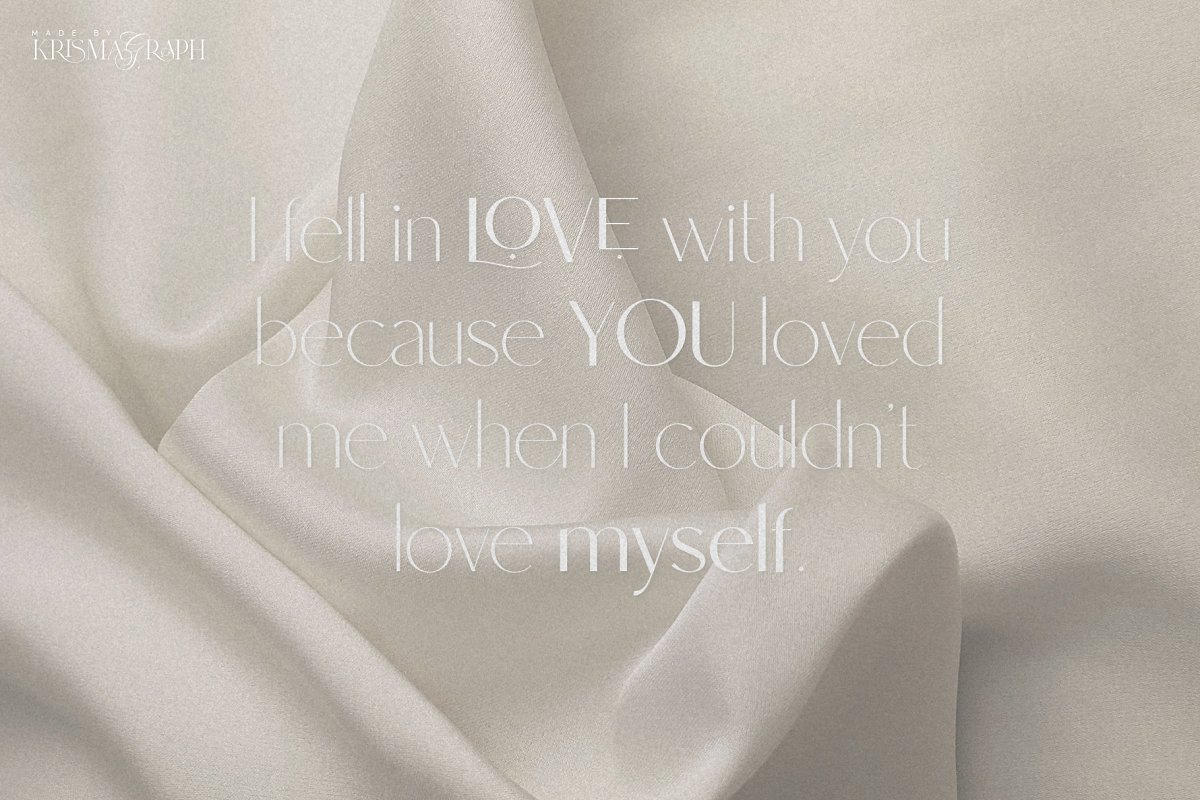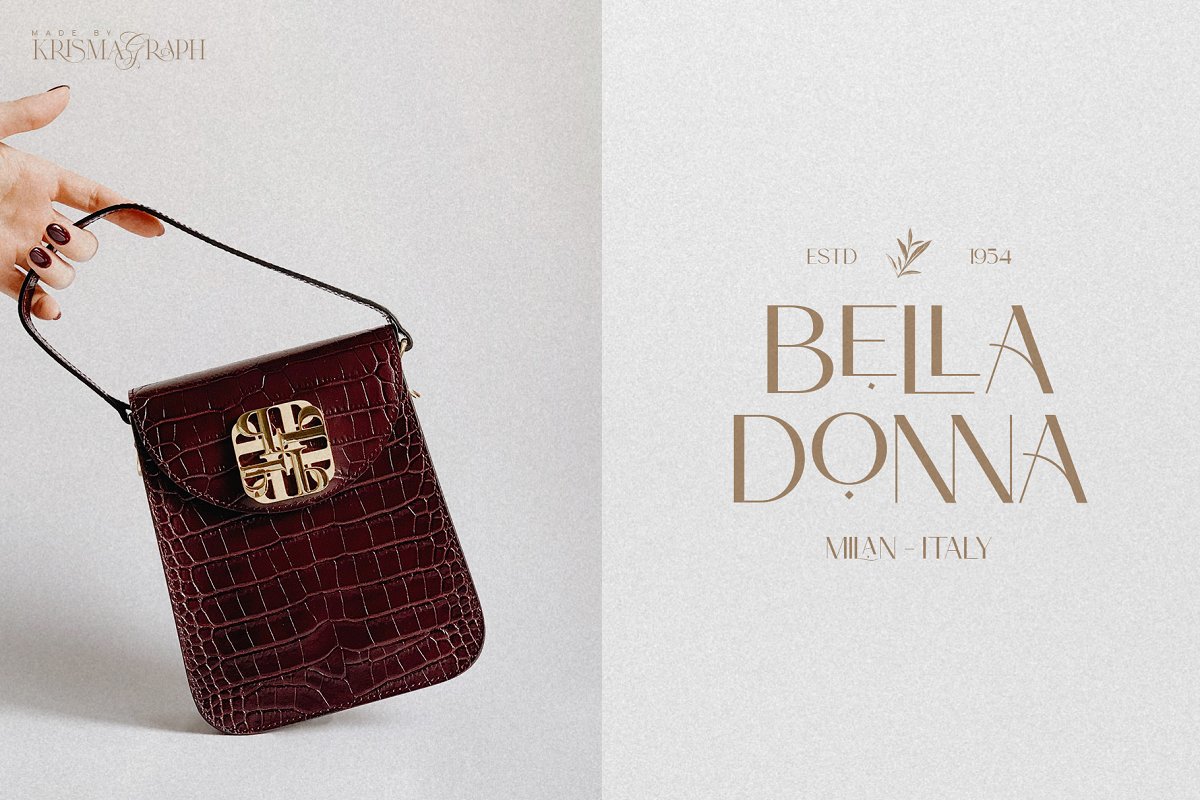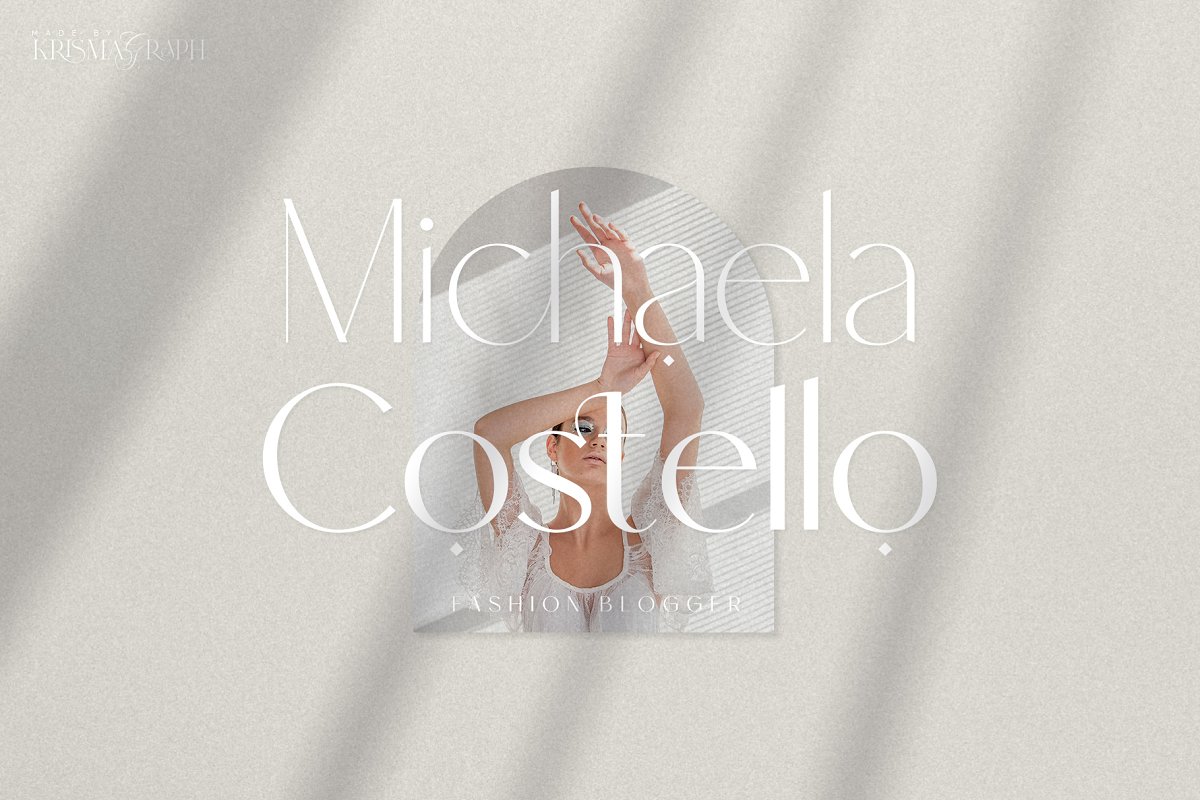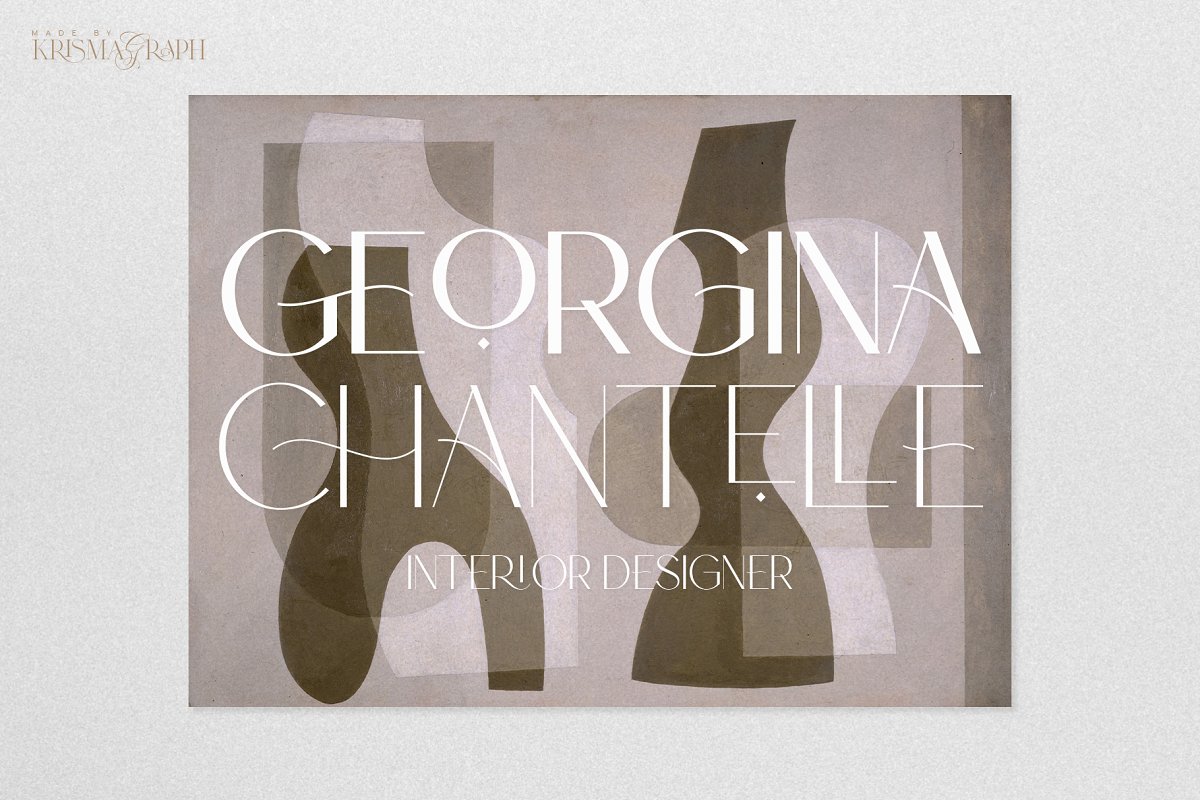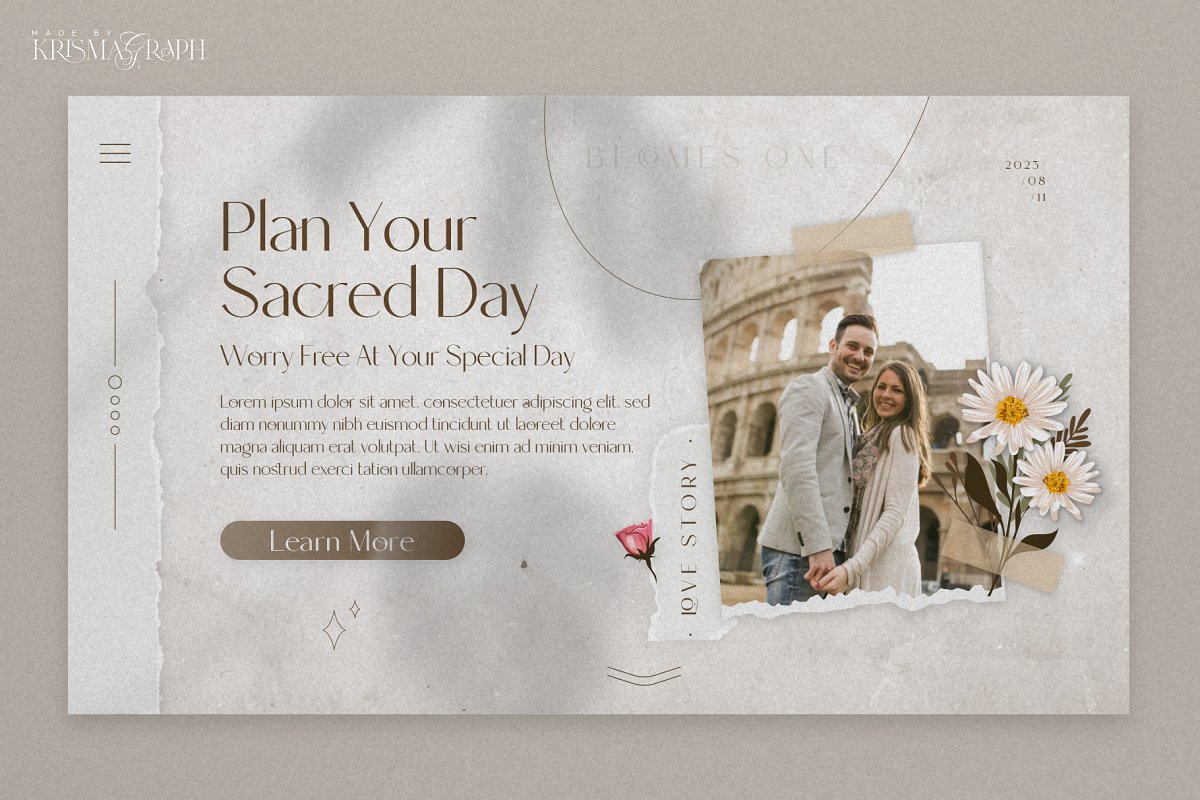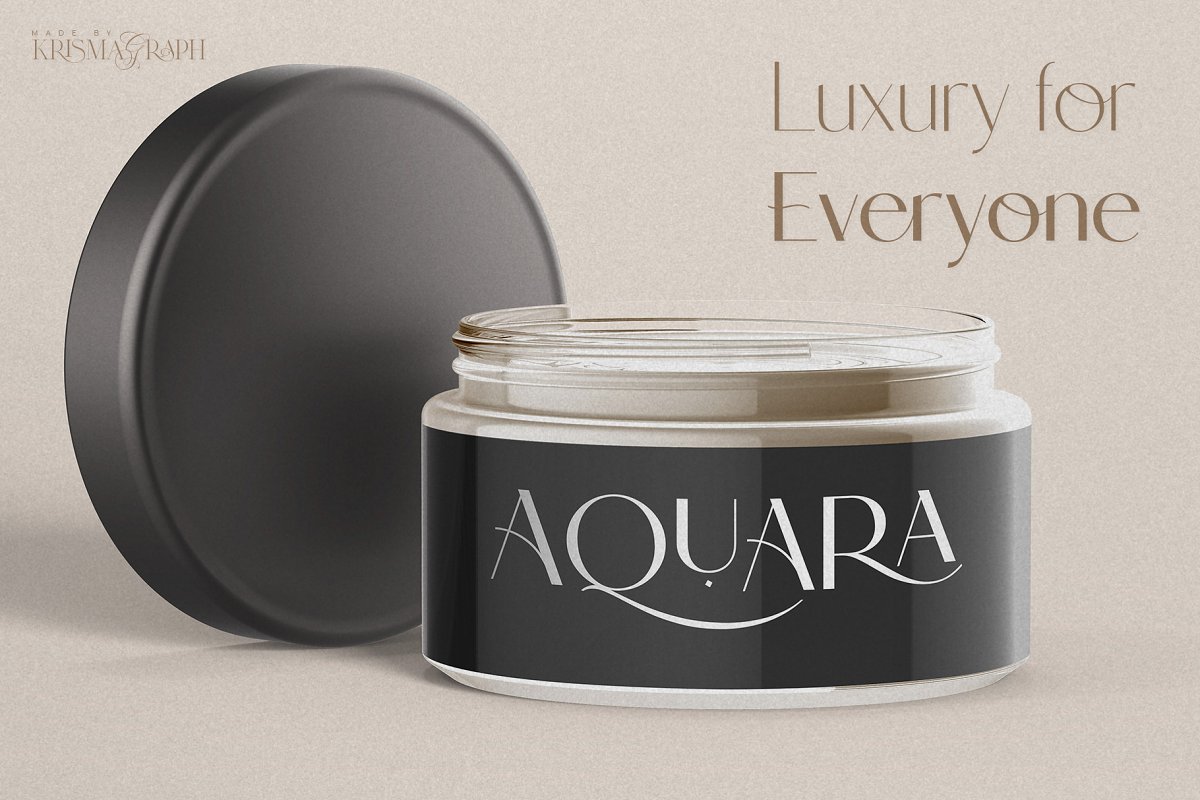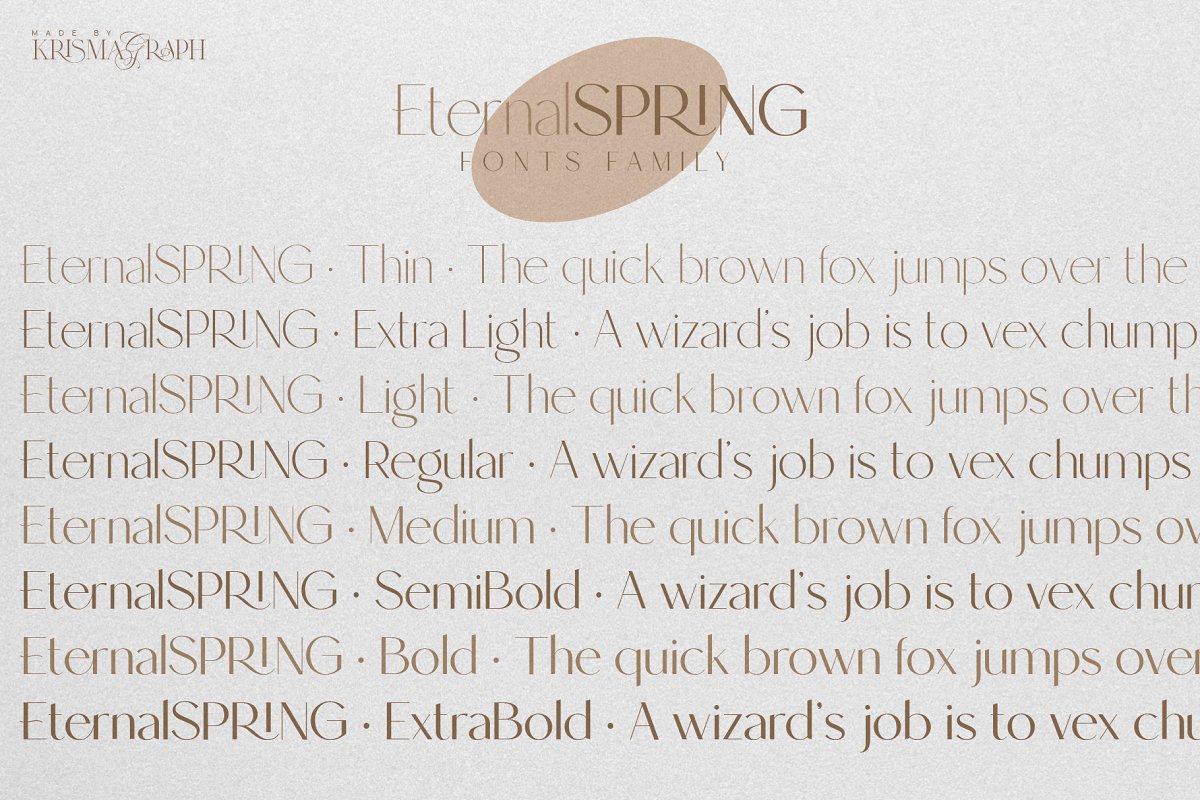
About the Eternal Spring | Elegant Sans Family
Eternal Spring is an elegant and modern san serif font family, It’s sans serif in 8 weights from Thin to ExtraBold and variable font, Comes with 76 unique ligatures and 27 alternates, Eternal Spring font is a multipurpose font that is perfect for any project, with high contrast glyphs, giving it a feminine and masculine quality, modern, and easy to read
Great in layout design for quotes or body copy, best used as a display for headings, logos, branding, magazines, product packaging, invitations, and others, This font is easy to use and has OpenType features, What you get:Eternal Spring Font Family OTF, TTF, WOFF, WOFF2 & Variable Font